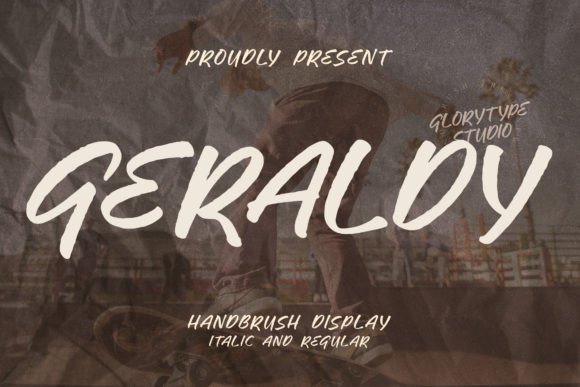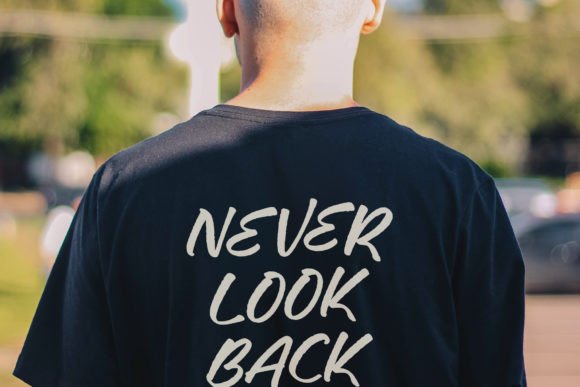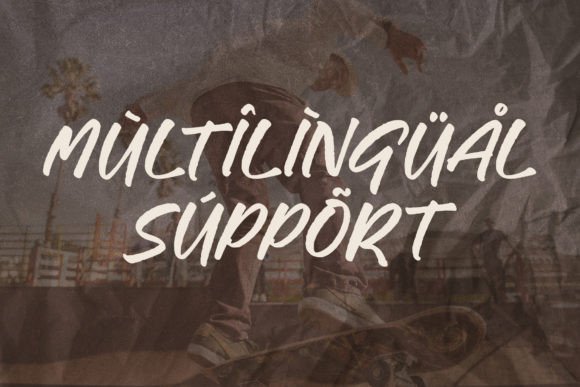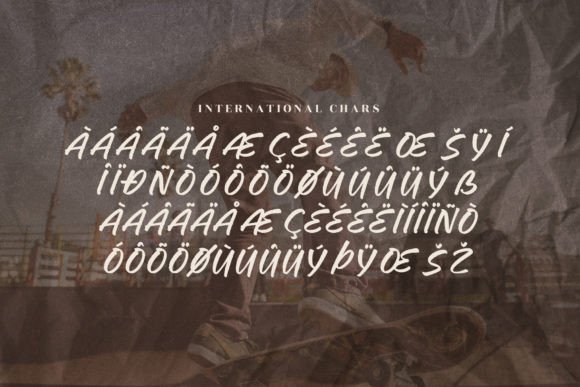
About Geraldy Font
“Geraldy is a Handbrush Handwritten font designed to bring a dynamic and expressive touch to your projects. This font is versatile and suitable for a wide range of applications, including logos, branding projects, homeware designs, product packaging, mugs, quotes, posters, shopping bags, t-shirts, book covers, name cards, invitation cards, greeting cards, labels, photography, watermarks, special events, and any other project that demands a beautiful script taste.
The charm of Geraldy lies in its handbrushed and handwritten style, where each stroke carries a sense of spontaneity and energy. This font becomes a go-to choice for designers seeking a typeface that adds a dynamic and stylish vibe to their creations.
Whether you’re working on a bold branding project or creating a personalized invitation, Geraldy stands out as a font that enhances the overall aesthetic. Its handbrushed characters add a unique and eye-catching quality to your text.
Imagine Geraldy elevating your projects, adding a dynamic and Handbrush Handwritten touch that sets a stylish tone. Its expressive style becomes the defining element that sets your designs apart, creating a visual experience that resonates with energy and creativity.
As you explore the nuances of Geraldy, you’ll discover its potential to transform ordinary projects into visually striking expressions. Let it be the font that brings a touch of dynamic elegance to your creative vision, making your designs stand out with a stylish and expressive aesthetic. With Geraldy, every stroke becomes a brushstroke of creativity, making it a valuable asset for designers seeking a versatile and expressive handwritten font.”